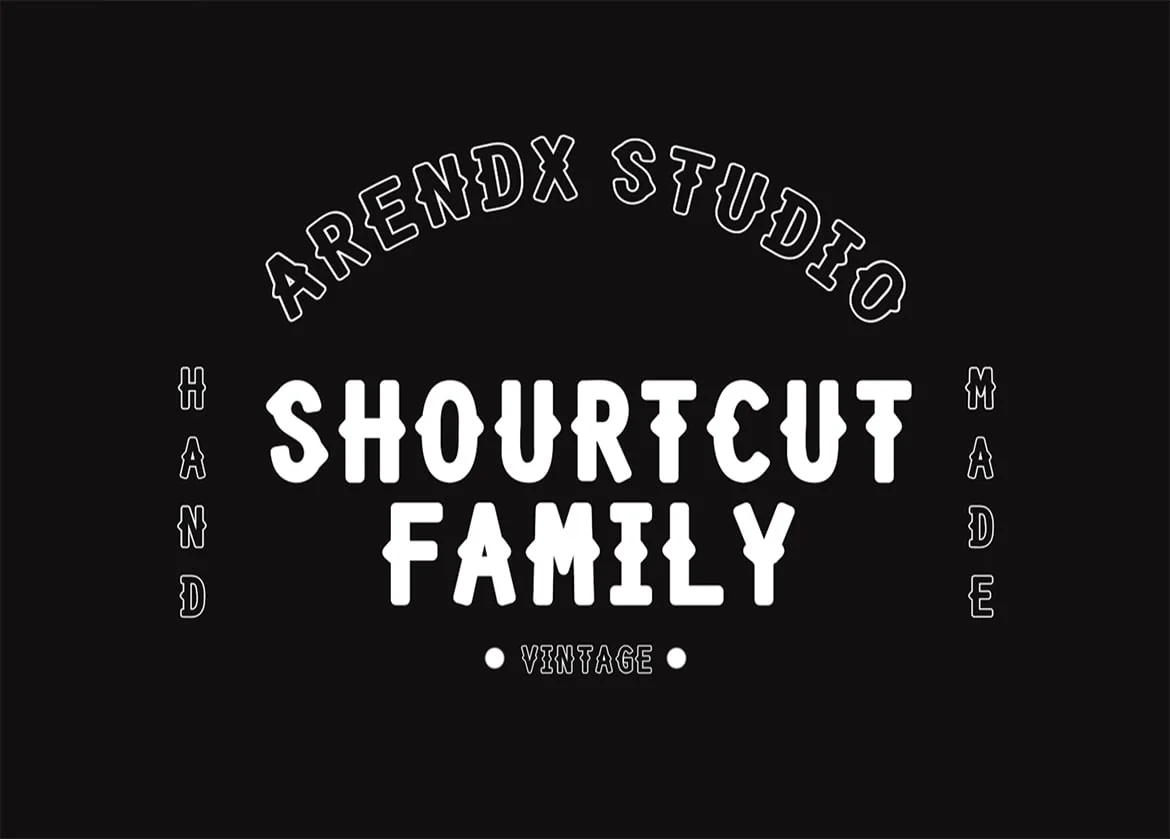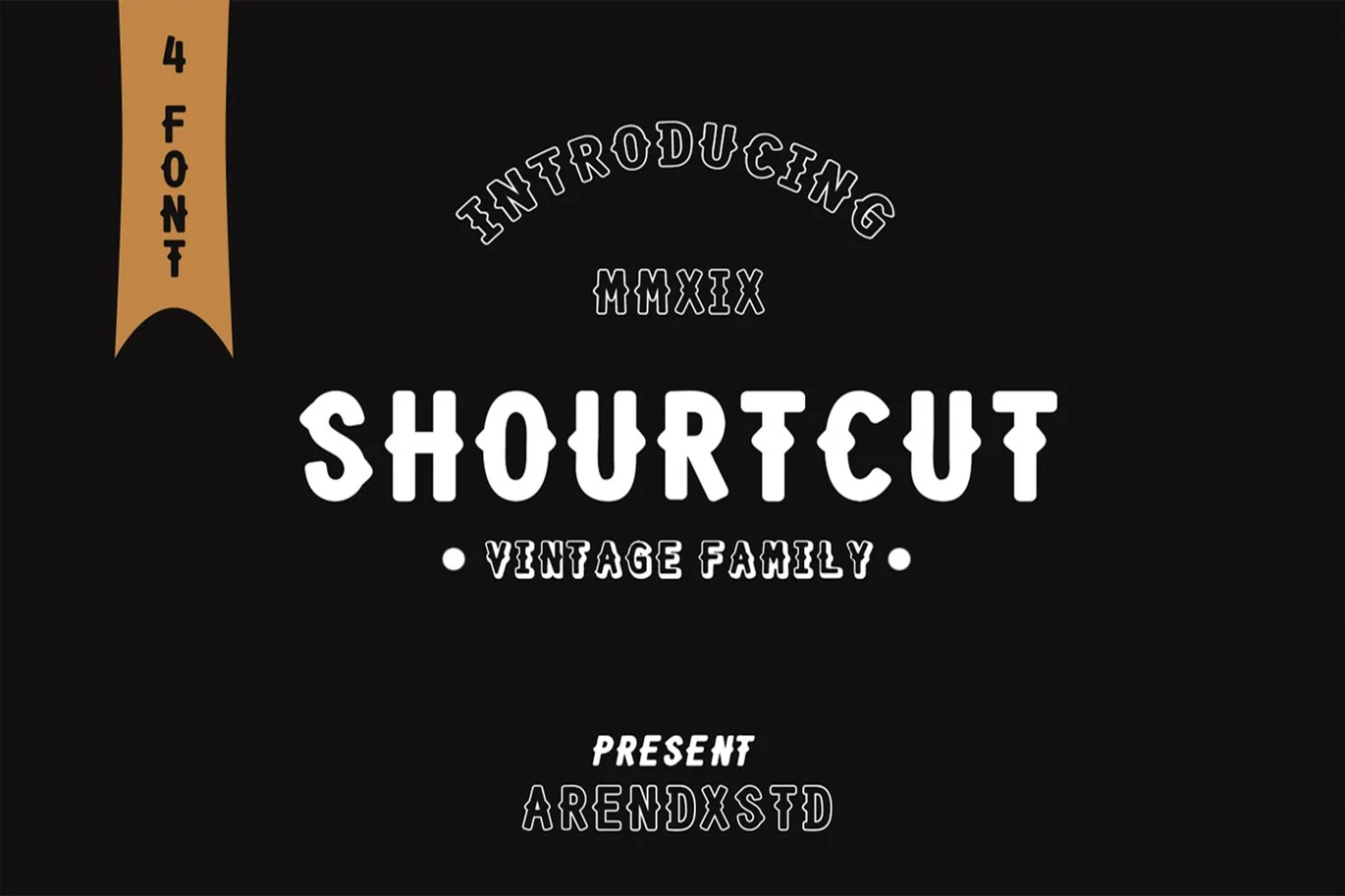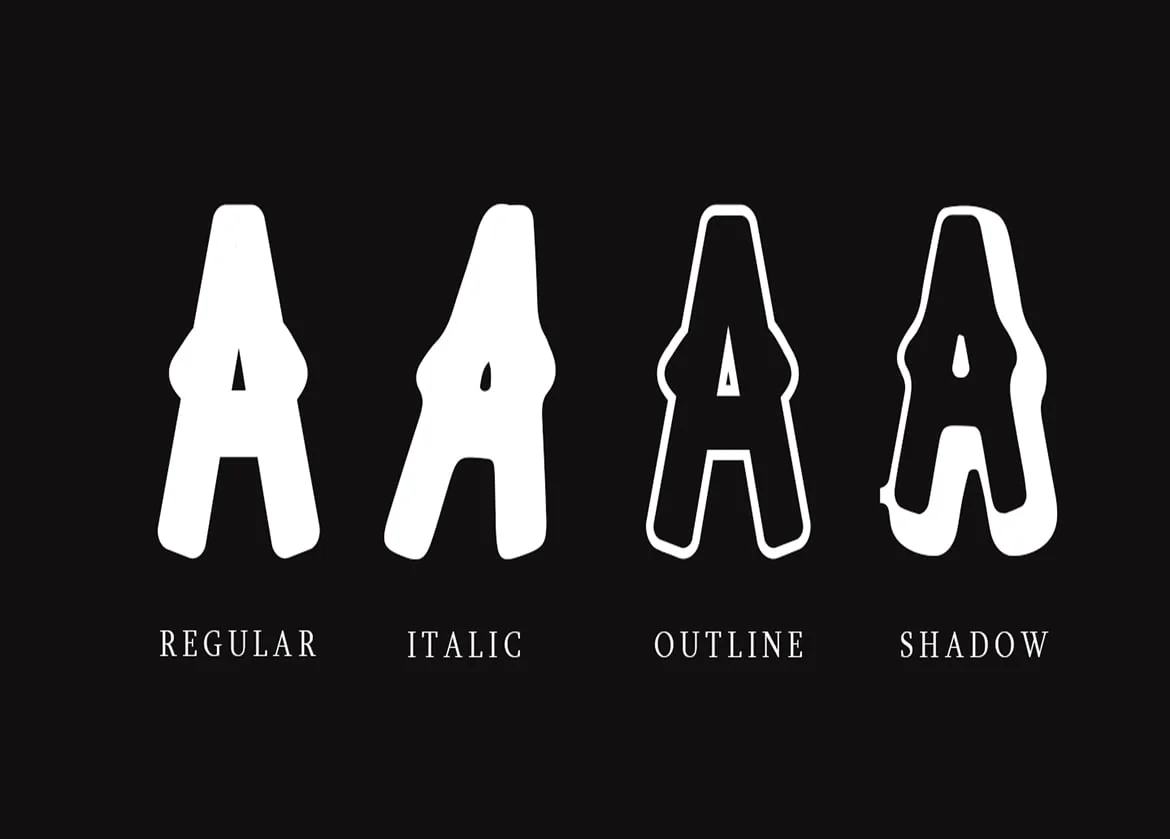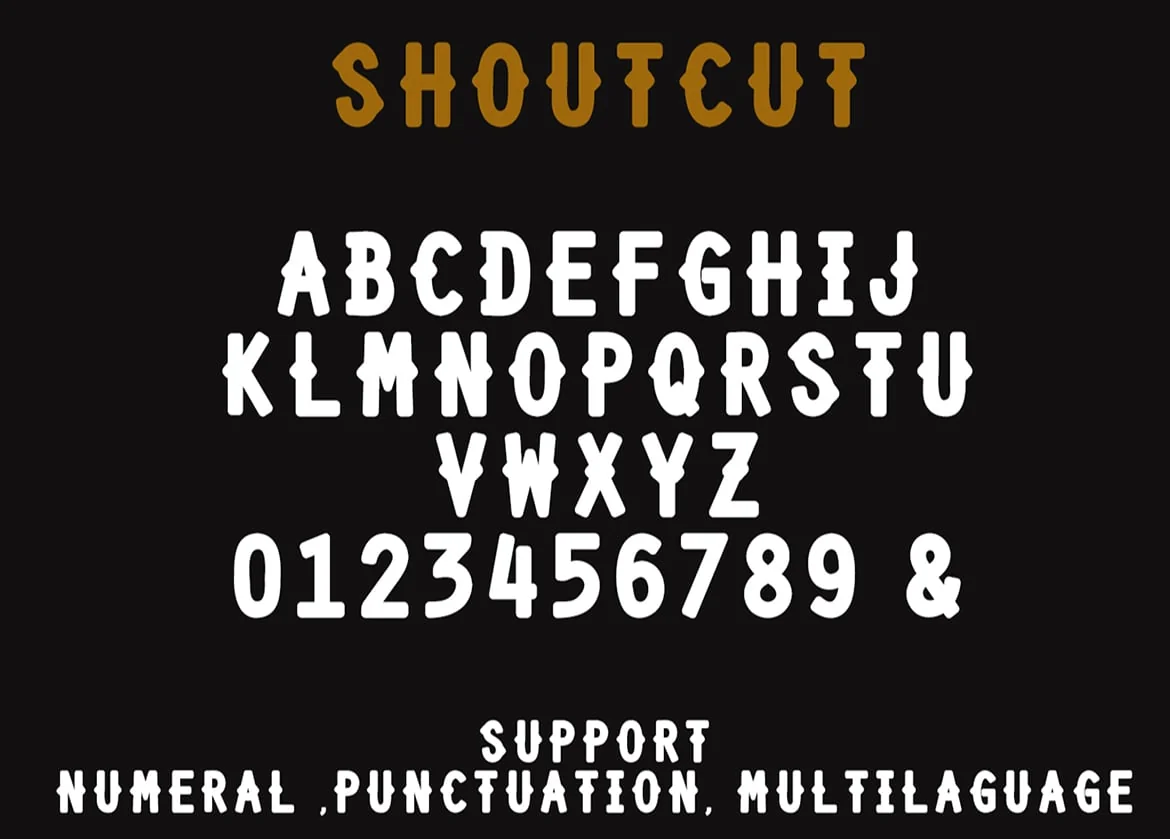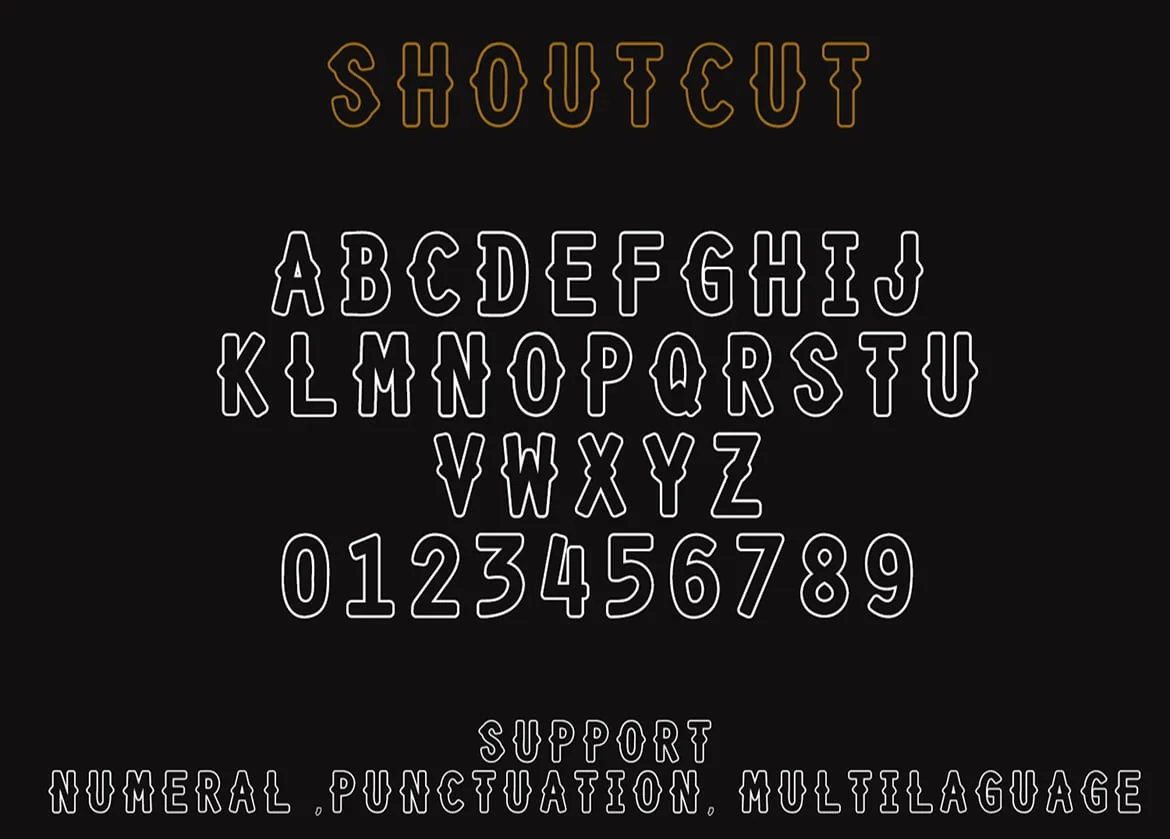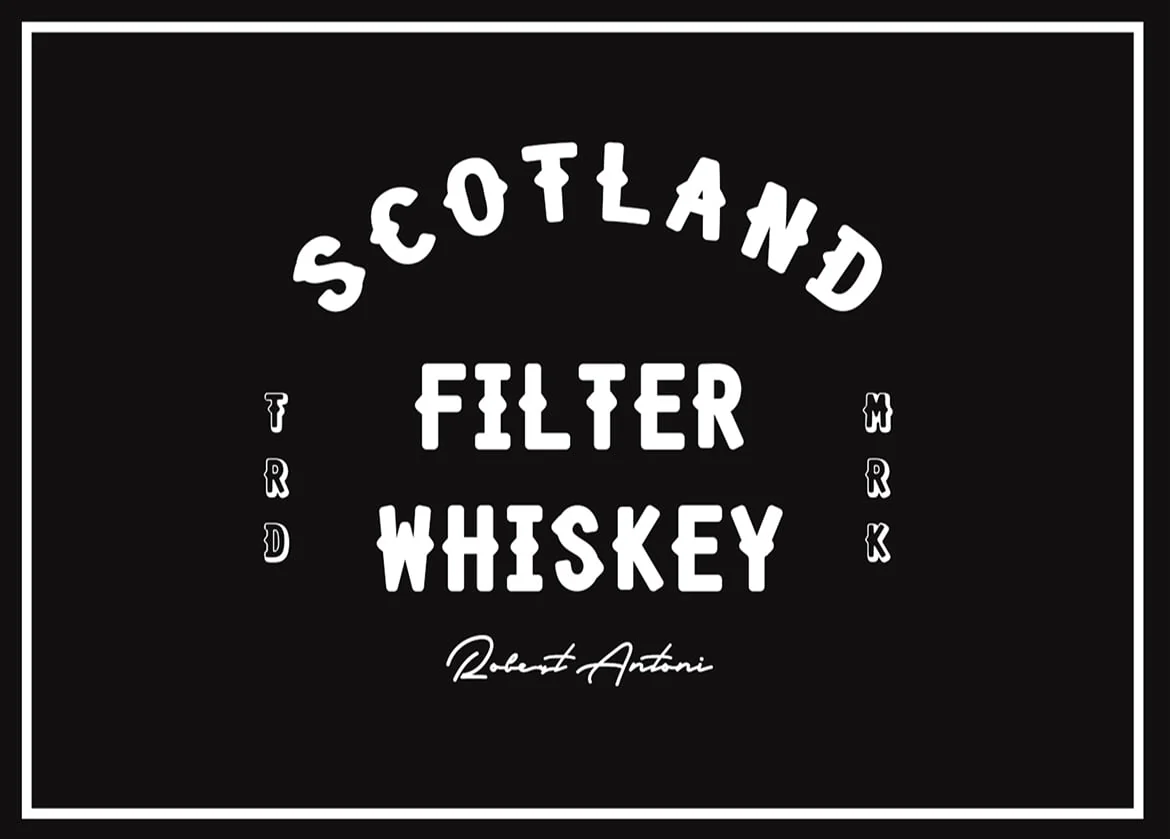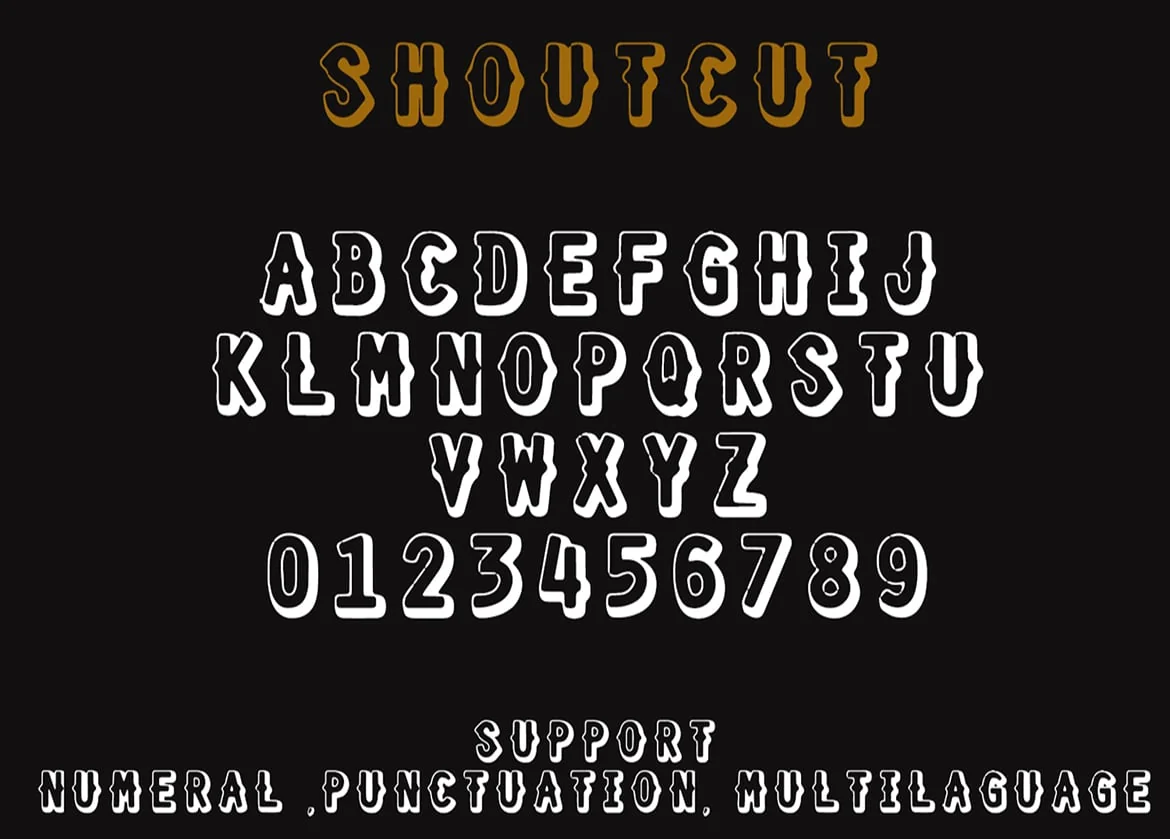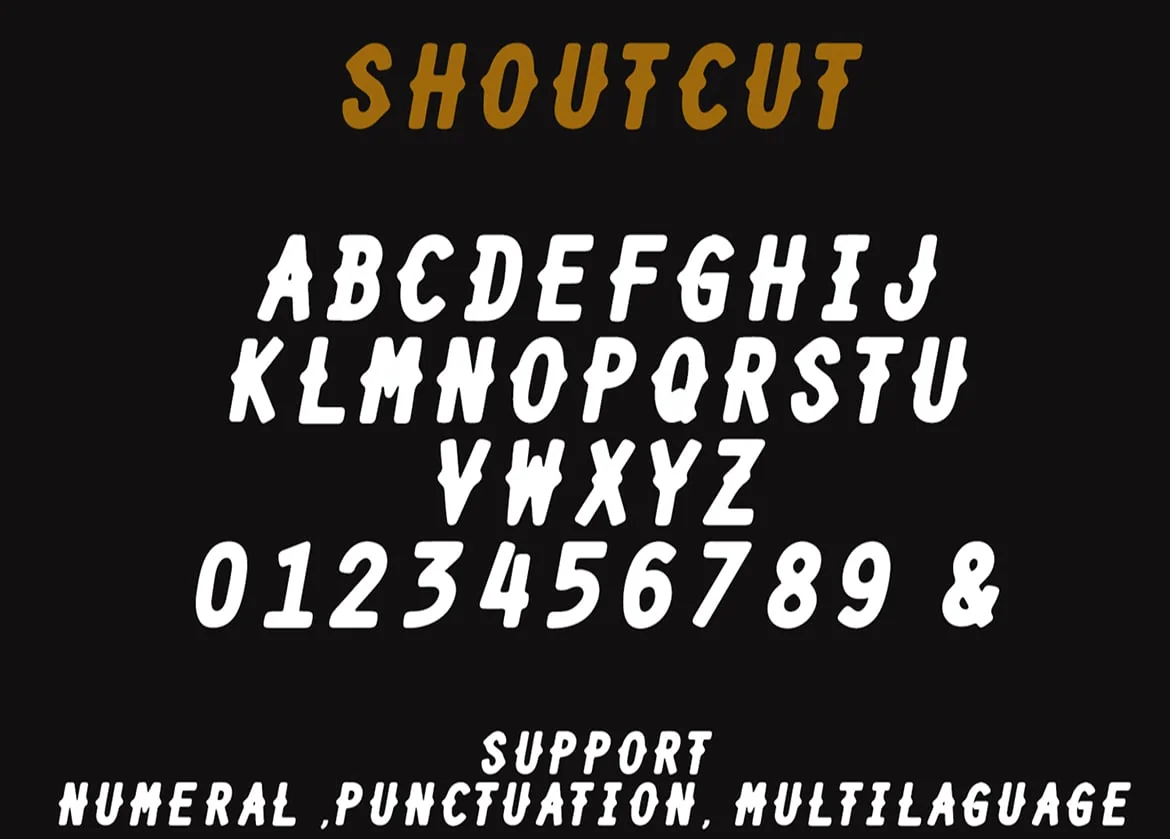
Shourtcut Vintage Bundle Font
Shourtcut Familly is a font designed for the needs of all your retro-themed projects and can be implemented to all the designs you want to make.
Feature Include : 1.Uppercase & Lowercase 2.Numer & Punctuation 3.multilaguage support 4.Regular,Italic,Outline,Shadow